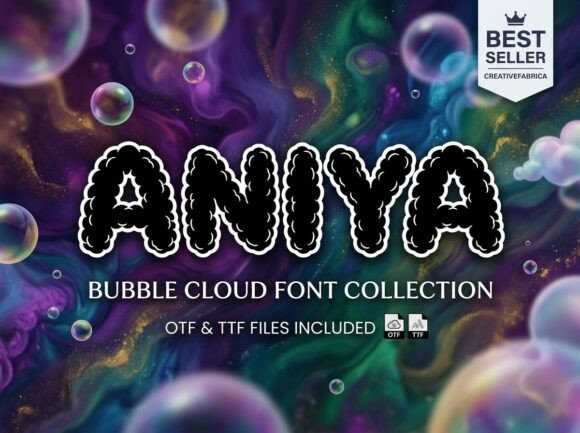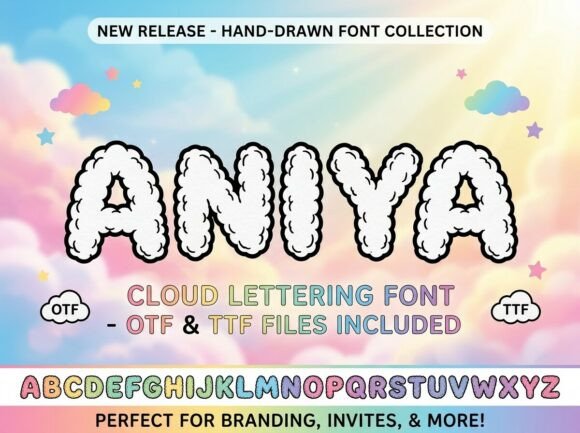
Discover the Whimsical World of Aniya Font
Are you ready to elevate your design game with a font that’s as playful as it is captivating? Look no further than Aniya Font, a whimsical display typeface that’s sure to transport you to a world of wonder and enchantment. With its ultra-bold letterforms, rhythmic scalloped outline, and cloud-like internal texture, Aniya is the perfect choice for designers and crafters looking to add a touch of magic to their projects.
The Inspiration Behind Aniya Font
Aniya Font is designed to evoke a sense of dreaminess and delight, making it perfect for projects that require a playful and imaginative approach. The font’s creator aimed to bridge the gap between playful bubble letters and modern illustrative branding, resulting in a unique and captivating typeface that’s both fun and sophisticated.
Key Features of Aniya Font
- Ultra-Bold Letterforms: Aniya Font features massive, ultra-bold letterforms that demand attention and make a lasting impression.
- Rhythmic Scalloped Outline: The font’s rhythmic scalloped outline adds a touch of whimsy and playfulness, setting it apart from more traditional typefaces.
- Cloud-Like Internal Texture: The internal “cloud-like” texture of Aniya Font adds a soft, dreamy quality that’s perfect for creating a sense of wonder and enchantment.
- Heavy Structural Weight: Despite its playful personality, Aniya Font has a heavy structural weight that makes it perfect for high-impact designs.
Perfect Applications for Aniya Font
Aniya Font is incredibly versatile, making it perfect for a wide range of applications, including:
- Independent Toy Packaging: Add a touch of magic to your toy packaging with Aniya Font’s playful and whimsical design.
- Children’s Bedroom Decor: Create a dreamy and delightful atmosphere in children’s bedrooms with Aniya Font’s captivating design.
- Artisanal Bath-and-Body Labels: Elevate your bath-and-body labels with Aniya Font’s unique and sophisticated design.
- High-Impact Social Media Headers: Make a lasting impression on social media with Aniya Font’s bold and attention-grabbing design.
Why Choose Aniya Font?
So why choose Aniya Font for your next design project? Here are just a few reasons:
- Unique and Captivating Design: Aniya Font’s unique design is sure to set your project apart from the crowd.
- Playful and Whimsical Personality: Aniya Font’s playful personality makes it perfect for projects that require a touch of magic and wonder.
- Versatile and Adaptable: Aniya Font is incredibly versatile, making it perfect for a wide range of applications and design projects.
In conclusion, Aniya Font is a whimsical display typeface that’s sure to transport you to a world of wonder and enchantment. With its ultra-bold letterforms, rhythmic scalloped outline, and cloud-like internal texture, Aniya is the perfect choice for designers and crafters looking to add a touch of magic to their projects. Whether you’re working on independent toy packaging, children’s bedroom decor, artisanal bath-and-body labels, or high-impact social media headers, Aniya Font is the premier choice for creating captivating and imaginative designs.